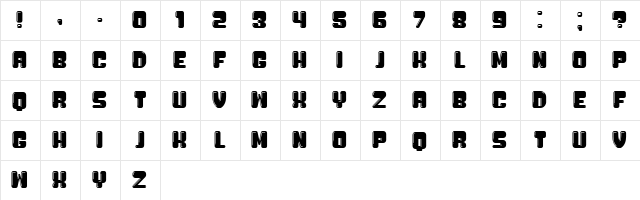
Bubblicious Regular
Design Context for Bubblicious Typeface
Bubblicious is a composed and adaptable typeface that performs quietly and consistently across a wide range of design contexts.